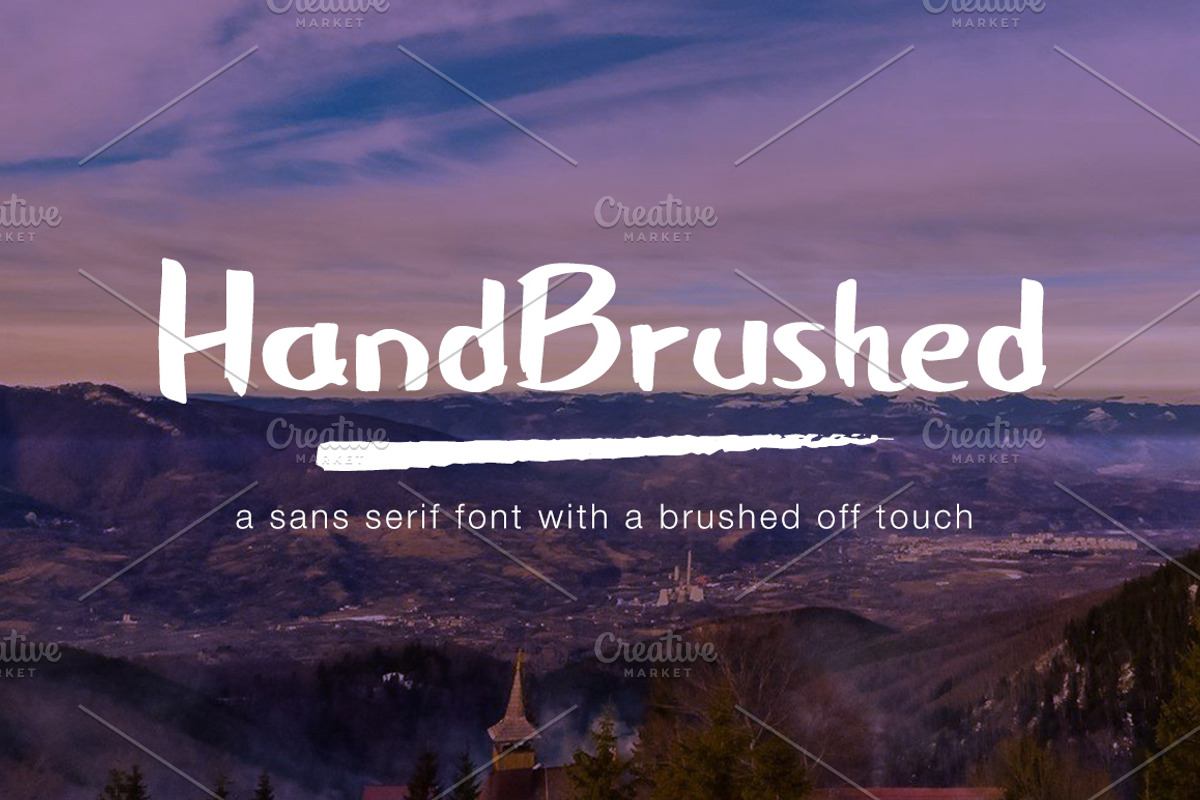
The HandBrushed Font Free Download brings a personal, hand-drawn touch to your design projects. This stylish and artistic typeface is perfect for adding a creative flair to your work. Whether you're designing invitations, logos, posters, or any other creative project, HandBrushed Font’s unique, brush-style strokes will give your design a distinctive look.
With its elegant yet casual style, the HandBrushed Font Free Download is ideal for a wide range of creative uses. Its flowing, brush-like letterforms create a sense of movement, making it perfect for projects that need a human touch. Whether you’re designing for print or digital platforms, this font adds personality and charm to any content.
HandBrushed Font is especially great for branding, invitations, greeting cards, and social media posts where you want to evoke warmth and authenticity. Its distinct brush strokes ensure that it stands out in any design, making it the perfect choice for projects that need a personal and artistic touch.